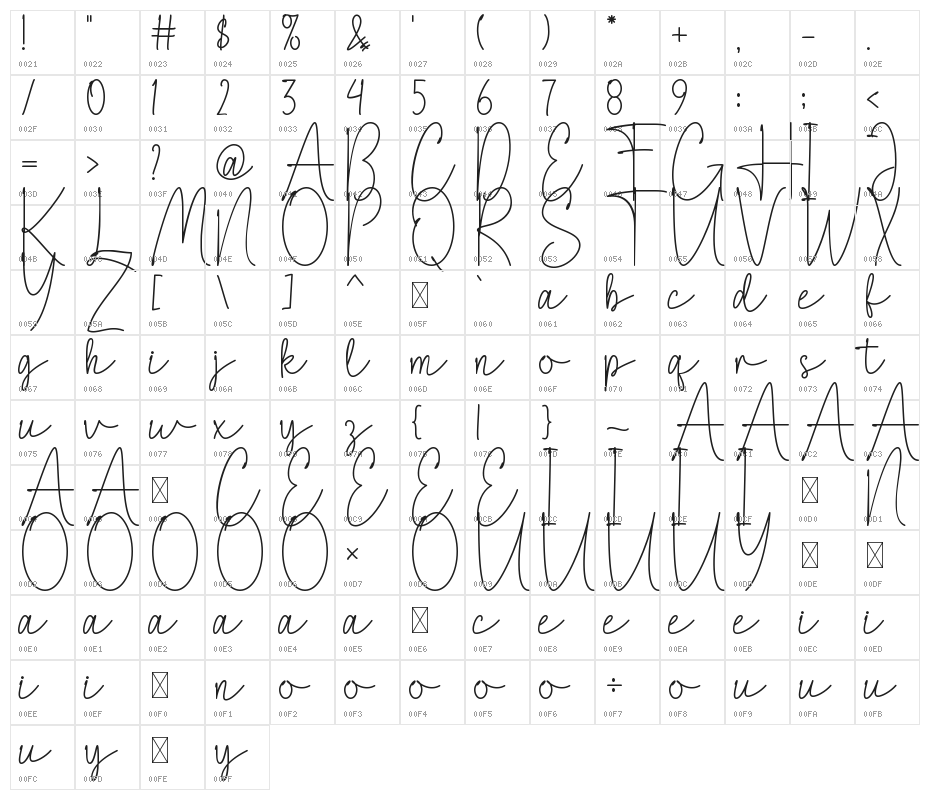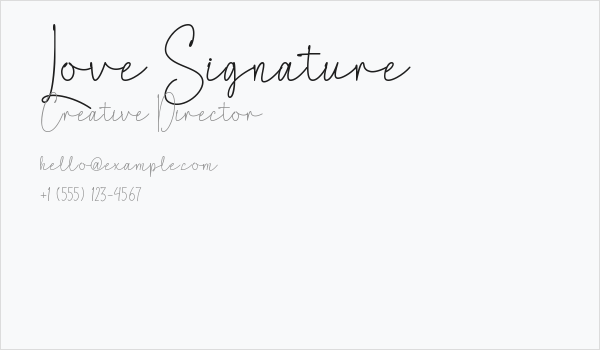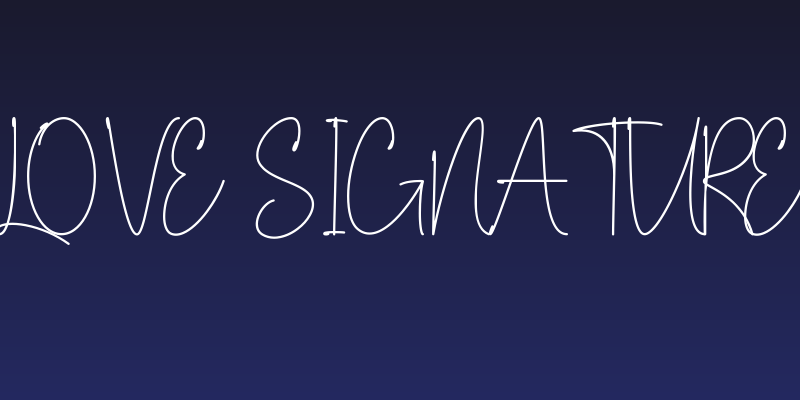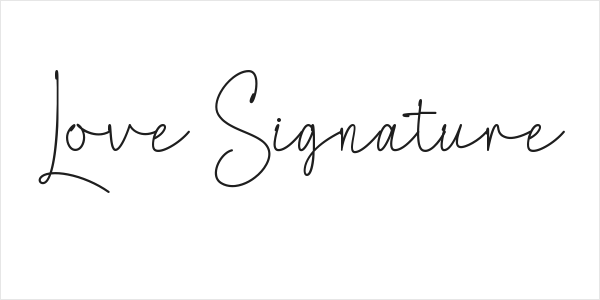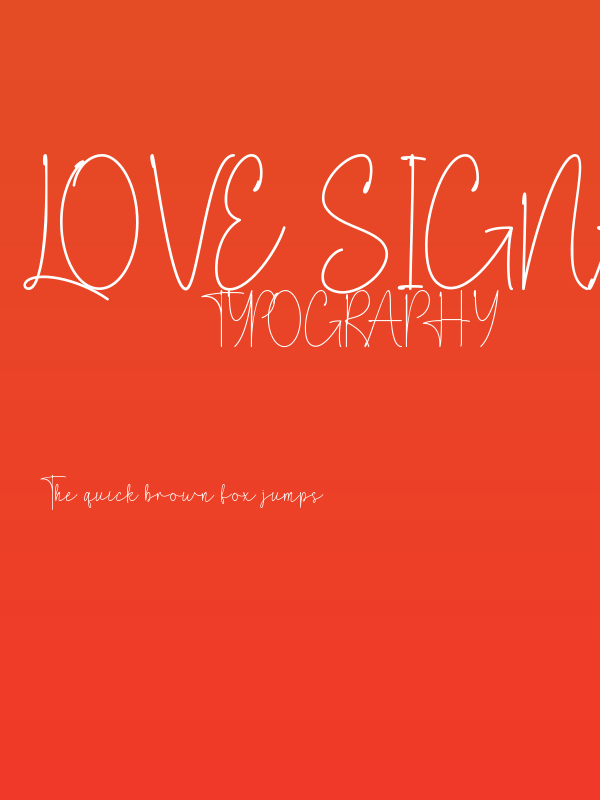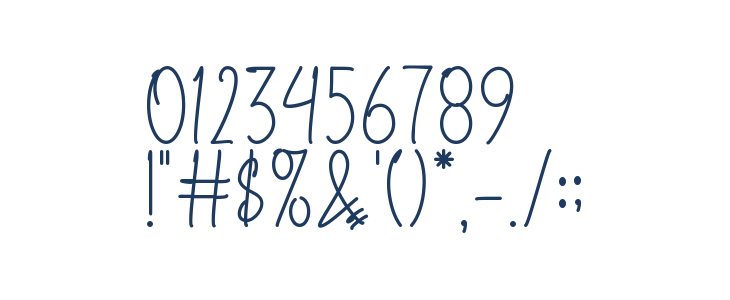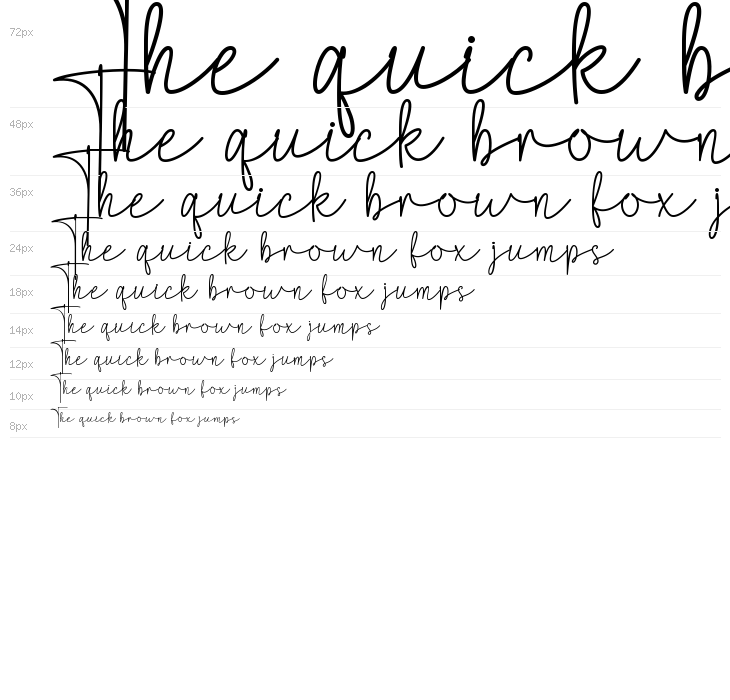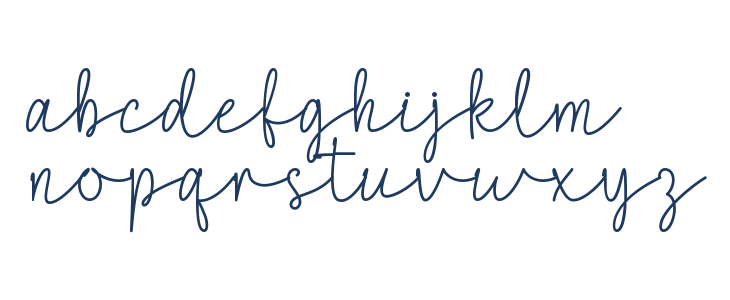
Love Signature Font
Love Signature Description
This font features a playful and whimsical style, characterized by its flowing, handwritten script. The uppercase letters are tall and slender, with a slight slant that adds to the casual, informal feel. The lowercase letters are more rounded and connected, creating a smooth, continuous line that mimics natural handwriting. The numbers are consistent with the overall style, maintaining the same playful curves and strokes. Special characters are integrated seamlessly, enhancing the font's versatility. The overall appearance is light and airy, making it suitable for projects that require a personal, friendly touch.
| Proposed Projects | Ideal for greeting cards, invitations, personal branding, and social media graphics. |